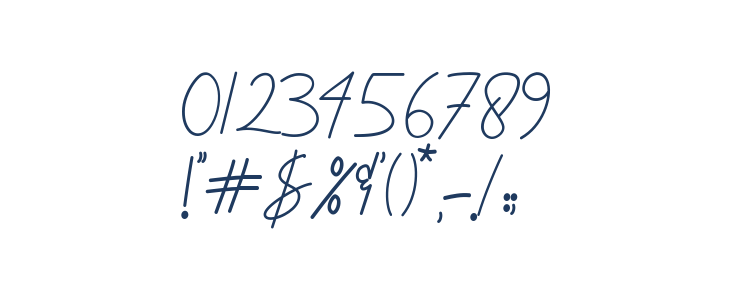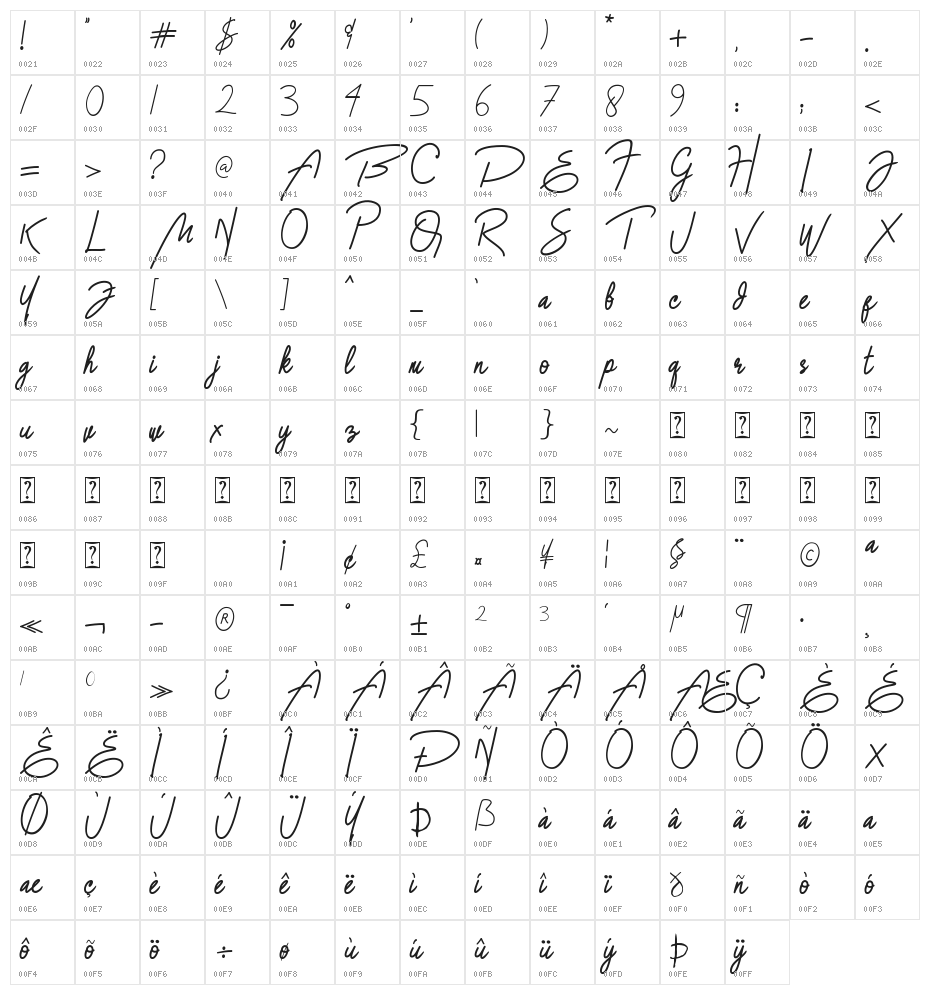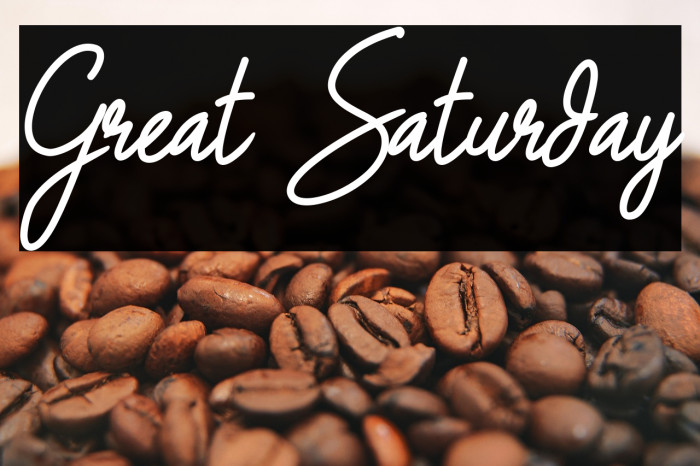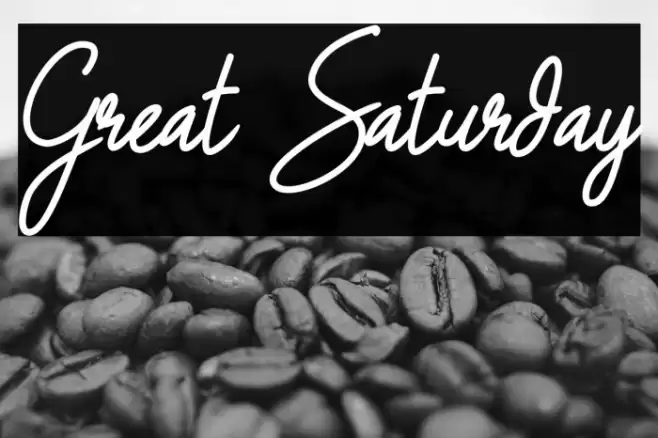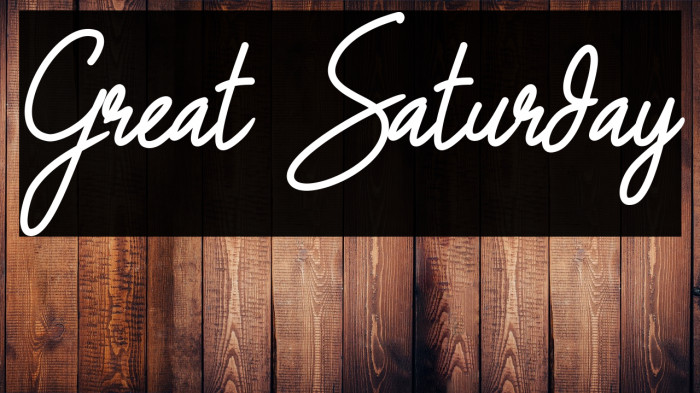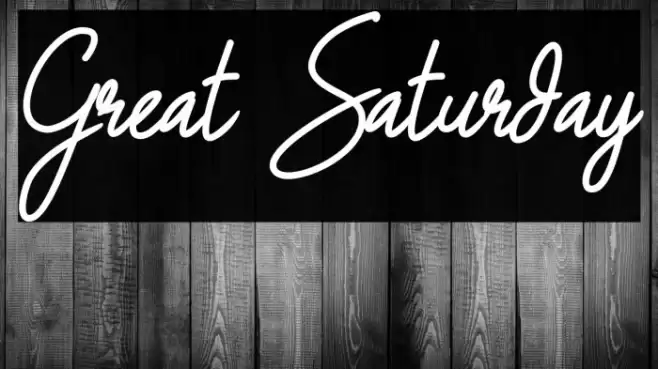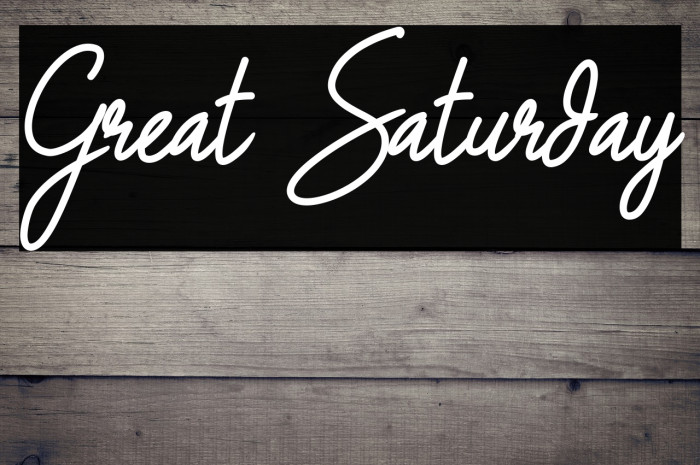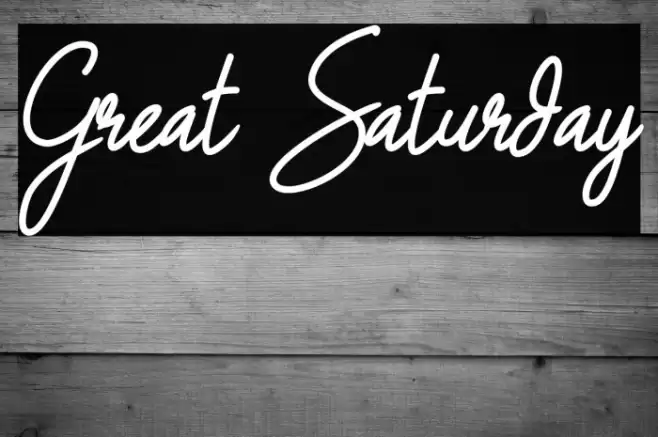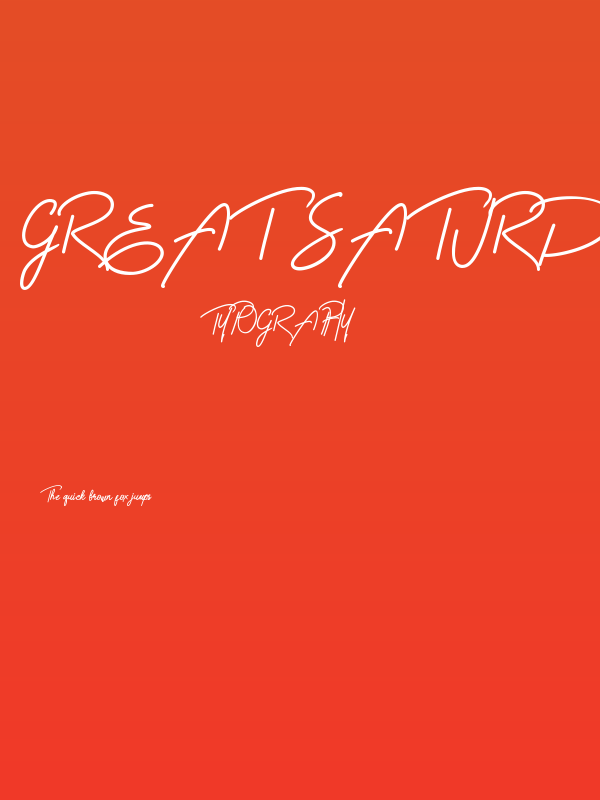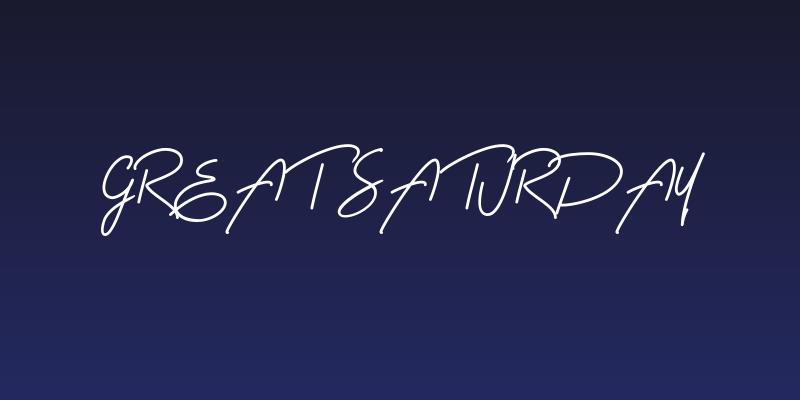
Great Saturday Font
Great Saturday Description
This font features a dynamic and expressive handwritten style, characterized by its fluid and cursive strokes. The uppercase letters exhibit a playful and artistic flair, with varying heights and slants that create a sense of movement and spontaneity. The lowercase letters maintain a consistent flow, enhancing readability while retaining the font's unique personality. Numbers and special characters are crafted with the same attention to detail, ensuring a cohesive look across all glyphs. The overall appearance is both elegant and casual, making it suitable for a variety of creative applications.
| Use Case | Logos, Invitations, Greeting cards |
| Proposed Projects | Ideal for invitations, greeting cards, branding, and creative projects that require a personal touch. |